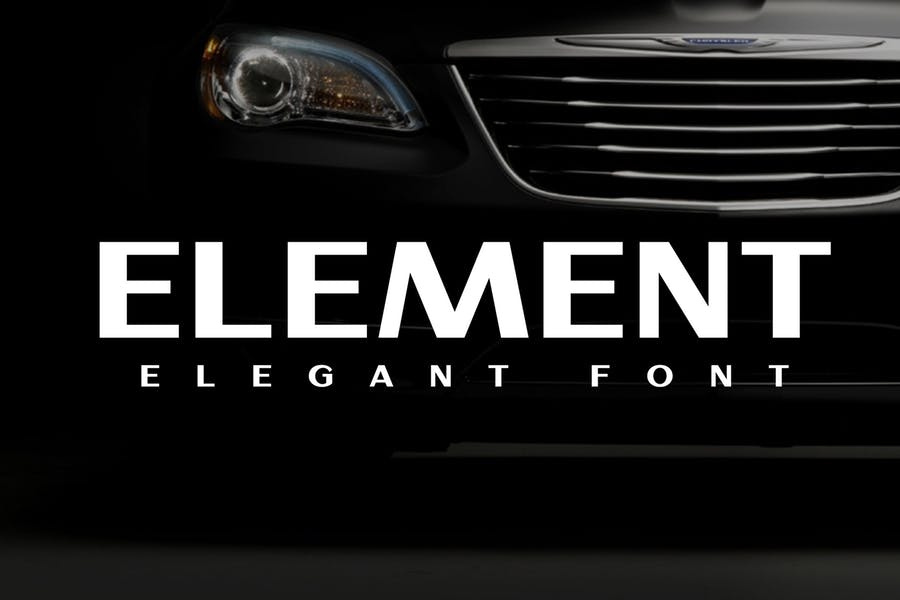
Element Font
Element Font is perfectly suited for scientific publications, chemical company branding, educational materials, laboratory signage, research institution logos, technical documentation, environmental awareness campaigns, periodic table designs, and systematic information layouts.
What makes Element Font so exciting is its fundamental precision and scientific clarity that perfectly embodies the essential principles of systematic design while maintaining exceptional functionality through every methodically crafted letterform. This remarkable typeface captures the essence of scientific accuracy with its clean geometric forms and balanced proportions that evoke the reliability and precision of scientific research and systematic analysis. The font's distinctive character shapes and structured design create an atmosphere of intellectual rigor and methodical thinking that resonates with academic audiences and professionals who value evidence-based approaches and systematic solutions. Element Font stands out through its ability to convey scientific authority, systematic thinking, and fundamental reliability, making it perfect for projects that need to establish credibility in scientific and educational contexts while communicating complex information with clarity and precision.
The Element Font family includes Light, Regular, Medium, Bold, and Black weights, each maintaining the font's distinctive systematic character while providing design flexibility for various scientific applications. The family also features technical symbols, mathematical characters, and scientific notation elements that enhance the font's academic appeal and provide comprehensive solutions for educational and research design projects.
When you choose Element Font Free Download, you're selecting a typeface that brings authentic scientific authority and systematic sophistication to your creative projects. This font excels in creating designs that need to convey accuracy, educational quality, and scientific credibility. Its precise systematic appearance makes it particularly effective for educational institutions, research organizations, and scientific projects that want to establish academic authority while maintaining clear communication of complex information.
The technical mastery of Element Font includes comprehensive character sets with uppercase and lowercase letters, numerals, punctuation marks, and scientific symbols that maintain the font's systematic character. The font has been engineered to ensure optimal legibility and precision across both digital and print applications while preserving the methodical details that give it its distinctive scientific character and educational appeal.
Whether you're designing scientific publications, creating educational materials, developing research presentations, or crafting designs that require systematic precision and scientific authority, Element Font delivers the perfect combination of scientific authenticity and contemporary functionality that makes your projects intellectually compelling and academically credible for audiences seeking reliable information and systematic understanding.